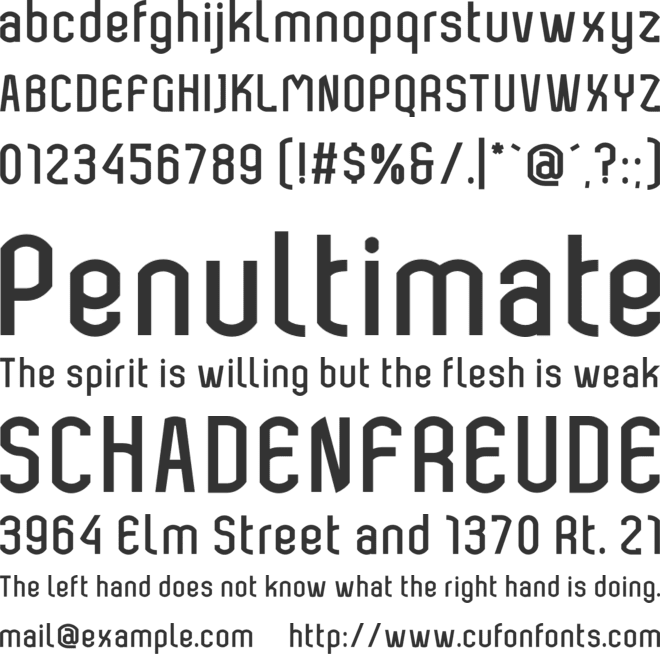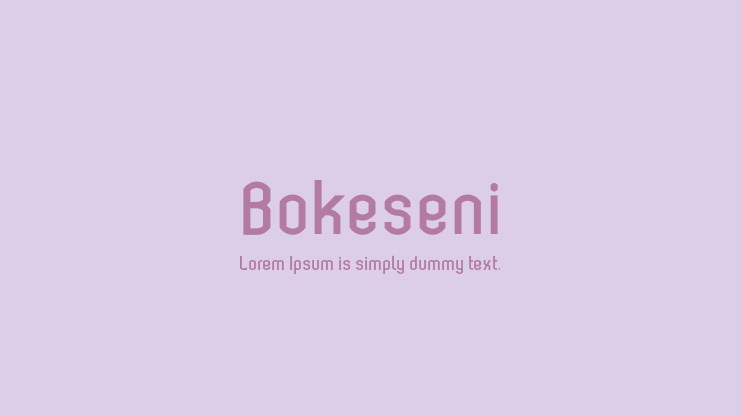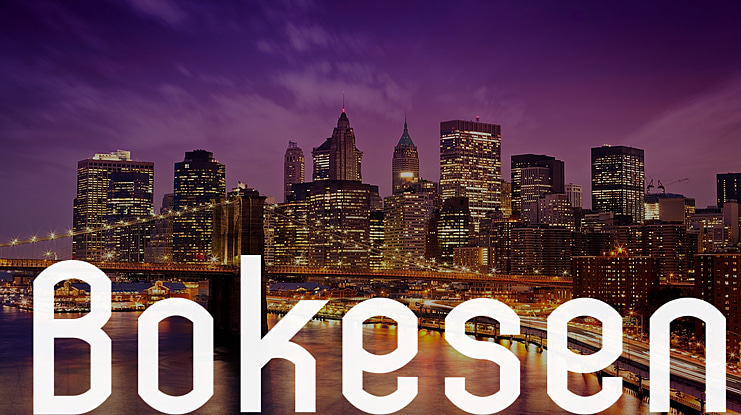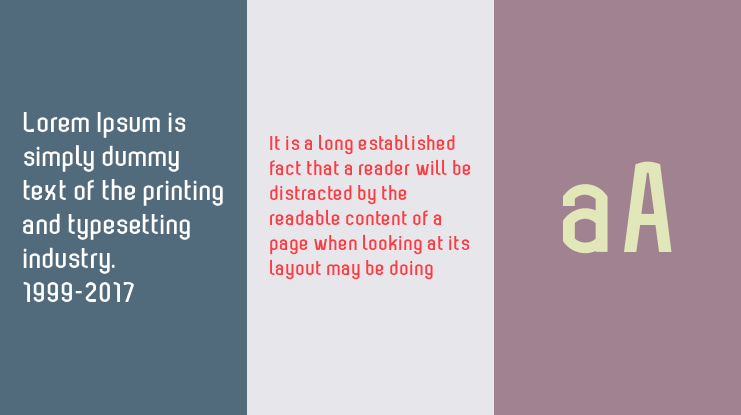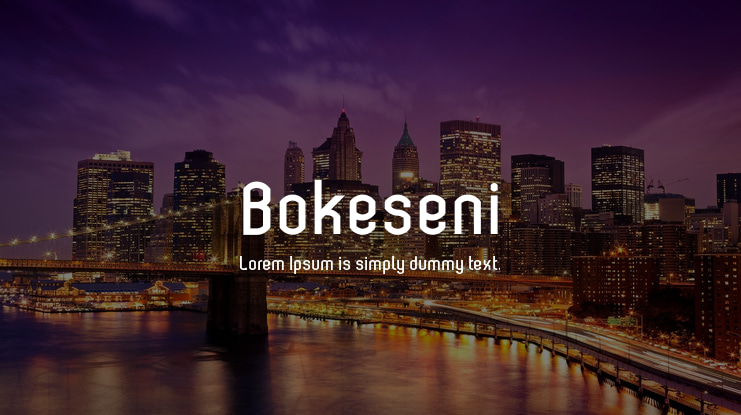
Bokeseni Font Family
Audry Kitoko Makelele
Bokeseni is a gorgeous sans serif with a modern and futuristic feel! It comes in three distinct versions, regular, black and expanded! It has 62 fonts.